To be honest, many calligraphy fonts look pretty cheesy, especially when you can get them for free but not our selection. We have chosen typefaces with graphic designers in mind working on a great variety of typographic projects. The following calligraphy fonts will add a good dose of elegance to your design projects. As already mentioned before, all of these 10 best calligraphy fonts are available for free, just follow the respective links below each font.
Naira Script Font
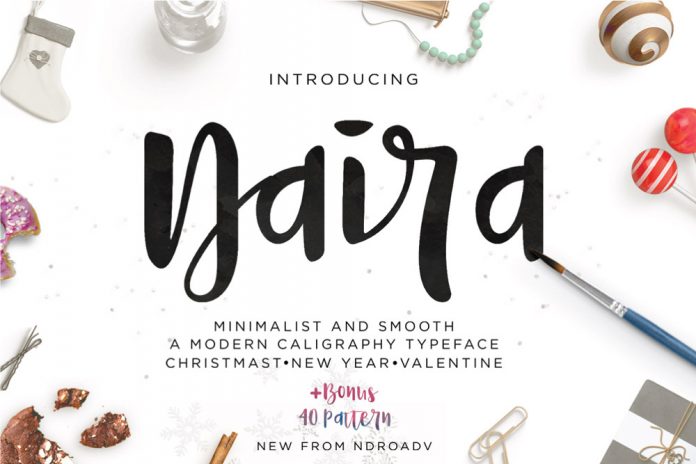
Free for personal and commercial use, Naira Script is a lovely calligraphy script font from foundry Ndroadv. Its fun, fresh, and simple typeface is extremely versatile and comes with lots of alternate characters and ligatures. Naira Script is well suited for logo designs, titles, invitations, letterheads, labels, signage, posters, badges, just to name a few. In addition, Naira Script includes a watercolor pattern collection as a bonus!
Fabfelt Script — Free Calligraphy Font
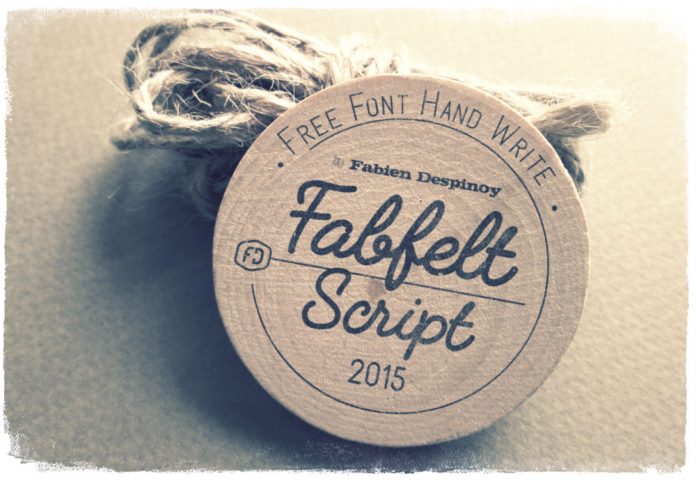
The Fabfelt Script font has been created by French designer Despinoy Fabien. It is based on a well legible handwriting style and was made especially for use in vintage designs. Fabfelt Script can be used for personal and commercial purposes.
The Woodlands — Brush Script
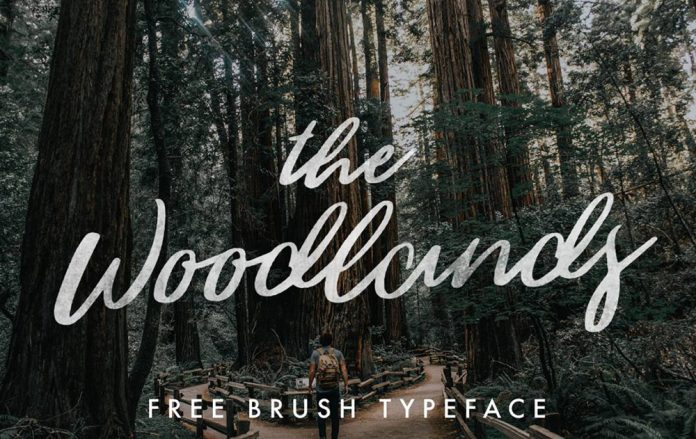
Free for personal and desktop commercial use, The Woodlands is a free brush script font designed by Jeremy Vessey of Hustle Supply Co. It is mostly characterized by a modern calligraphy aesthetic, which is extremely popular these days. Jeremy Vessey has created the typeface with the aim to give designers a free alternative font that looks great and helps to achieve this lettering feel we all love.
Frutilla Script Font
Frutilla Script is a free calligraphy font from Ianmikraz Studio. This gorgeous script typeface combines modern lettering design with classic calligraphy styles. You can use it on anything from wedding invitations to logo designs. Equipped with over 250 glyphs, this typeface comes with plenty of OpenType features and ornamental characters.
Hello Stockholm Typeface
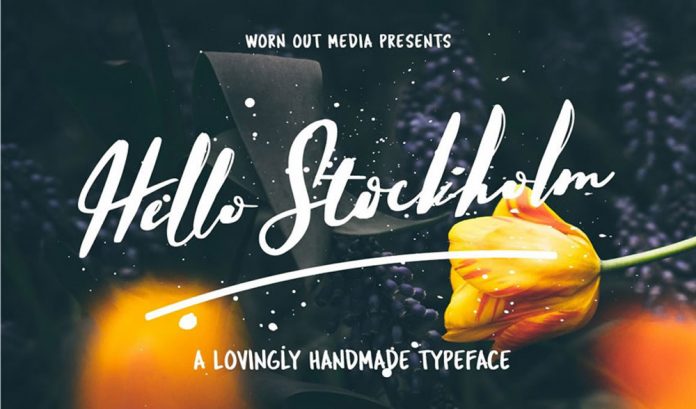
Hello Stockholm is a free calligraphy font with a natural hand-drawn style. Free for personal use, it’s quite fun to work with this typeface because of its little imperfections and brushed details. Equipped with upper and lowercase alternates, this free calligraphy font is perfect for wedding and birthday invitations, social media, t-shirt design, branding, etc.
Buffalo Font
Buffalo is another well-designed script font from Hustle Supply Co. Its lovely vintage style is a great choice for logo designs, branding, signage, or packaging. The typeface is characterized by a loopy and quirky monoline script style.
Salmela — Free Calligraphy Font
Designed and published by Genesis Lab, Salmela is a free calligraphy font for personal and commercial needs. The flowing script style is perfect for designs such as wedding invitations, signatures, letterheads, logos, t-shirts, just to name a few.
Alex Brush
Just look at these elegant letters! Alex Brush is a beautifully flowing brush script typeface. It has short ascenders and descenders allowing a legibility not seen in many other free calligraphy script fonts. It is available for both personal and commercial use.
Olivia Script Free
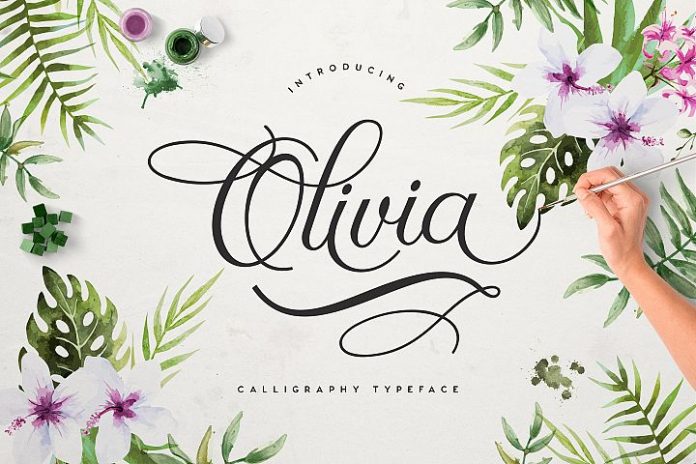
Olivia Script Free is a modern calligraphy typeface from FontBundles.net. Its sophisticated and graceful style is a great choice fo multiple purposes including wedding invitations, greeting cards, posters, wall hangings, gifts, and much much more. The free calligraphy typeface comprises 351 glyphs and is available exclusively at Font Bundles.
Noelan Script
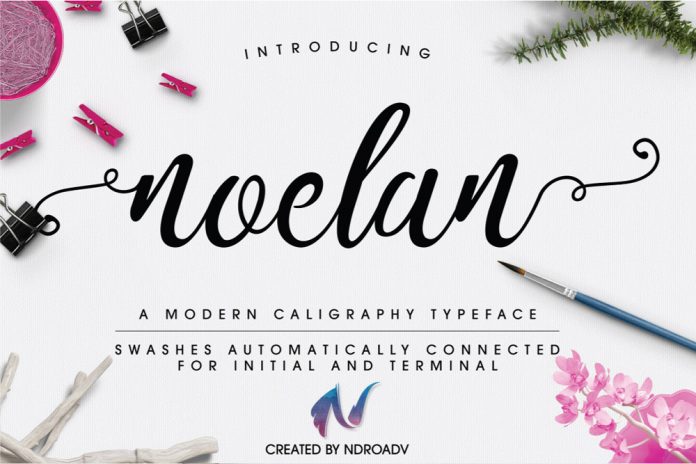
Designed by Ndroadv, Noelan Script is a free calligraphy font that features a very clean and modern design. It comes with plenty of alternate characters that can be combined in various ways.